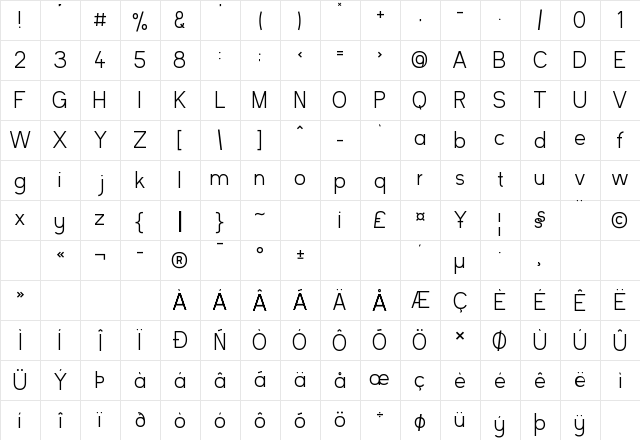
Kayak Sans Light
Designer: Jack Harvatt
Complete Kayak Sans Light glyph index. Displaying only characters natively supported by Kayak Sans Light font.
Design Context for Kayak Sans
Kayak Sans is a composed and adaptable typeface that performs quietly and consistently across a wide range of design contexts. Its slender proportions lend an understated elegance to any composition.